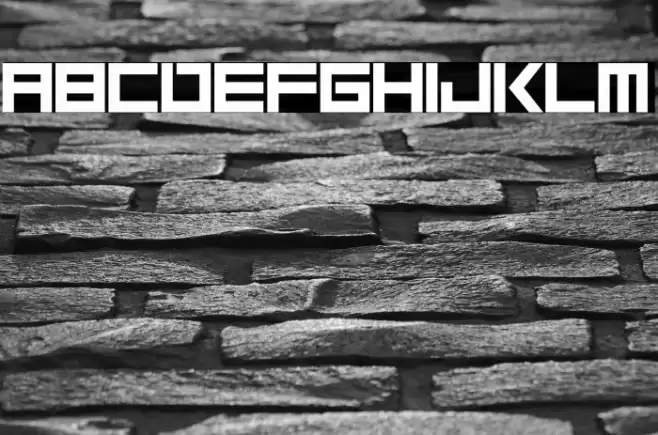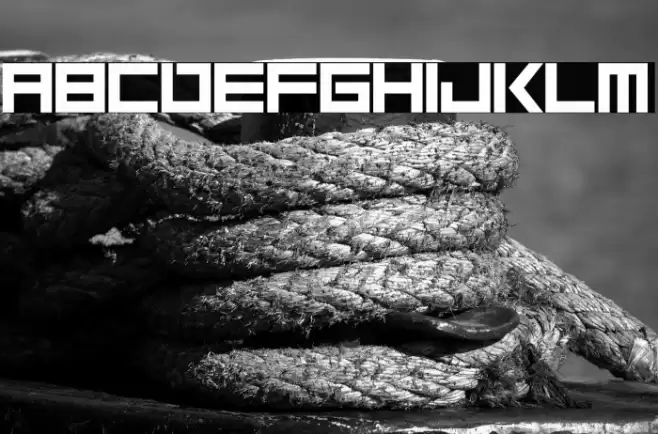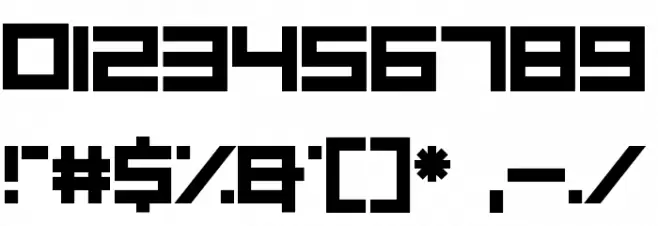
Square One Bold Font
Square One Bold Description
This font features a bold, geometric design with a distinctly modern and futuristic aesthetic. Each character is constructed with sharp, angular lines and a consistent stroke width, giving it a blocky and robust appearance. The uppercase and lowercase letters maintain a uniform height, enhancing the font's cohesive look. The numerals and special characters are designed with the same geometric precision, ensuring visual harmony across all elements. This font's unique style makes it stand out, ideal for projects that require a strong visual impact.
A bold, geometric font with a modern, futuristic style from Uncategorized fonts.
- Proposed Projects: Ideal for technology branding, video game titles, sci-fi posters, and modern digital interfaces.